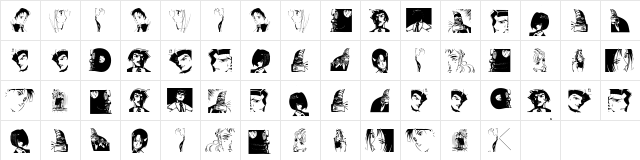
Mangalia Regular
Design Context for Mangalia Typeface
Mangalia is a composed and adaptable typeface that performs quietly and consistently across a wide range of design contexts.